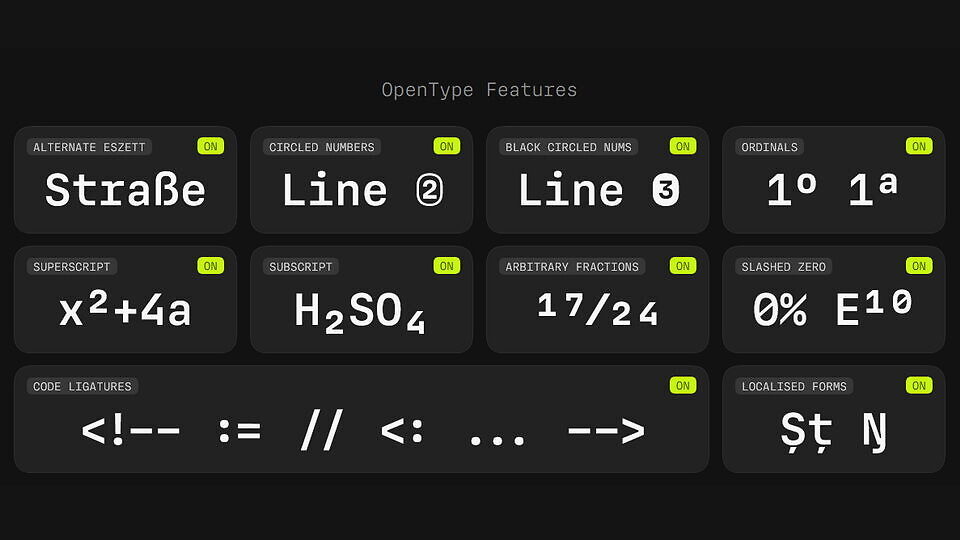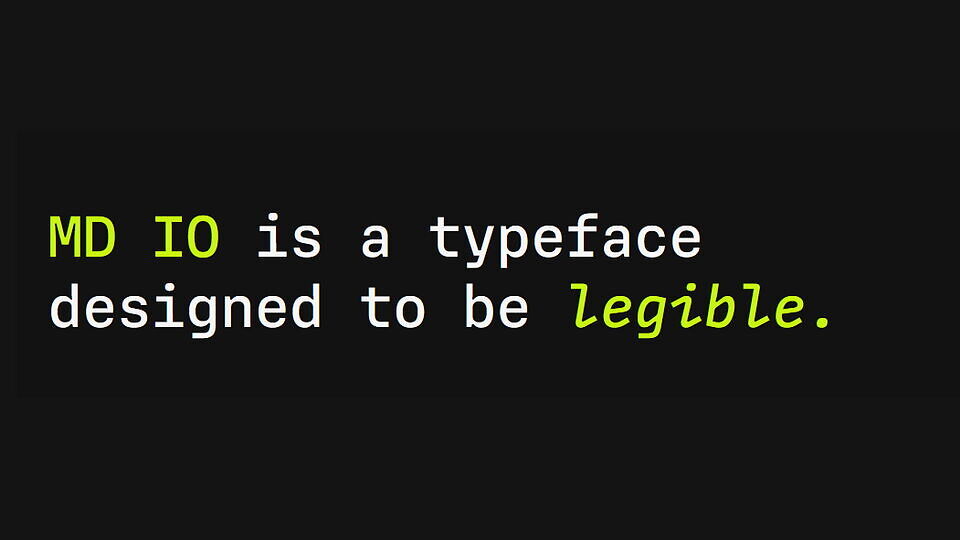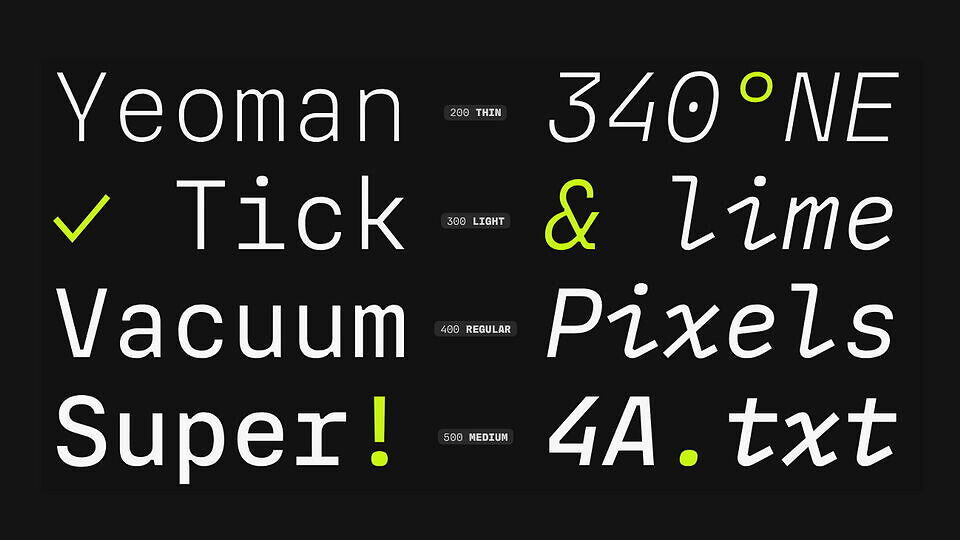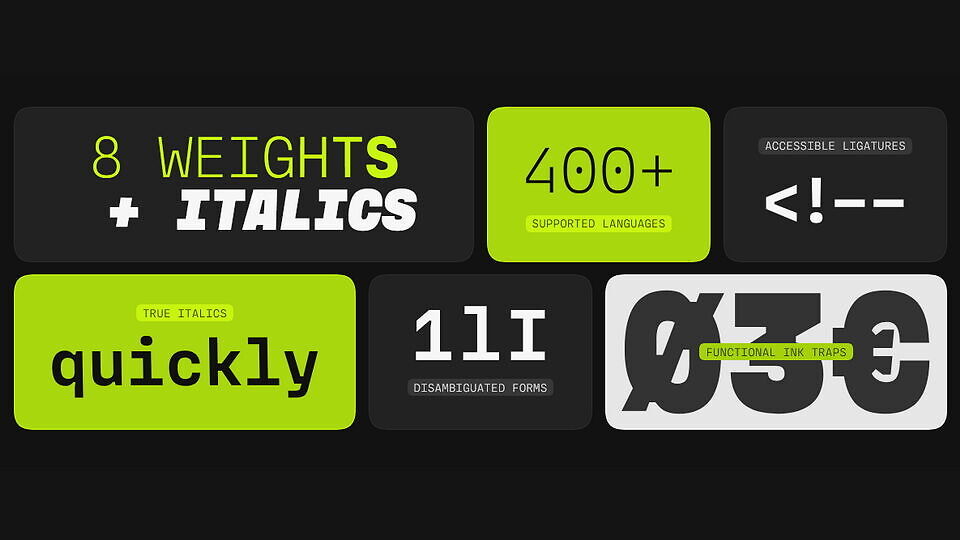
MD IO is a clean monospace family designed for legibility, particularly at small sizes and on digital screens. MD IO isn’t exclusively a programming font, but it was designed from the beginning to be ideal for writing code.
Alongside a tall x-height and balanced proportions, IO’s relatively large ink traps help to maintain clarity at smaller pixel sizes. *In the italic styles, glyphs use a cursive-inspired construction for greater emphasis.*
A suite of subtle, accessibility-focused “ligatures” help to improve the spacing of glyphs, and therefore visual flow. In reality, these are actually *dynamic repositioning rules* — unlike ligatures, they’re compatible with both syntax highlighting and manual tracking (letter-spacing).